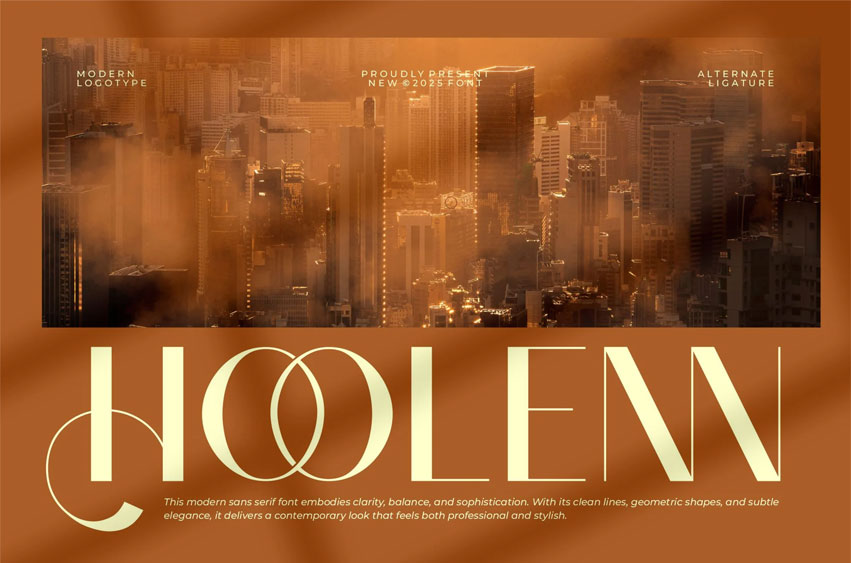
Hollen Font Sans Serif is a modern and vintage font type for all branding and logo designs. This modern and vintage Serif font has a beautiful character. This font is suitable for invitation card designs, cool logos, movie titles, movie names, business cards, book titles, brand names, and various other designs.
Hollen Sans Serif is a smooth serif font that exudes sophistication and the moment. Its stylish ligatures make this font a perfect partner for any project.